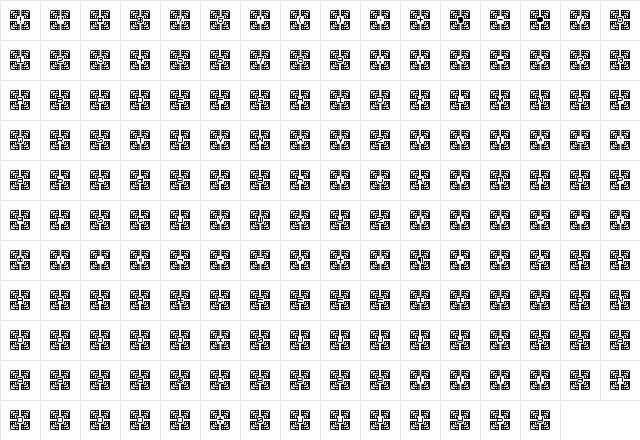
Zigourati Regular
| Designer | zephram |
Design Context for Zigourati Typeface
Zigourati is a composed and adaptable typeface that performs quietly and consistently across a wide range of design contexts.